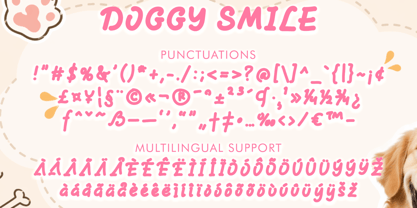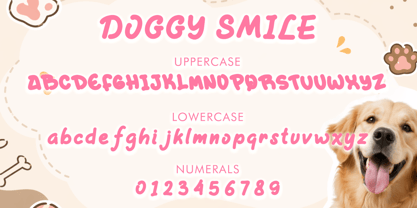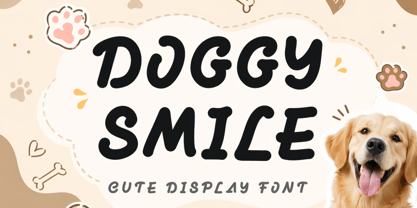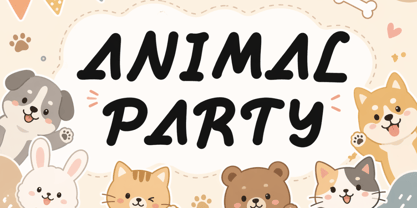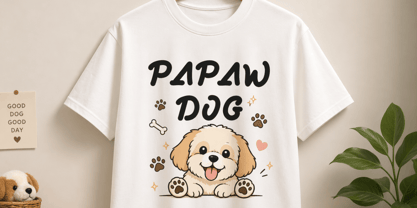
Doggy Smile
by Yoga Letter
The Doggy Smile Font Family was designed by Isroni Yoga Prasetya and published by Yoga Letter. Doggy Smile contains 1 styles. More about this family
“Doggy Smile” is a unique and fun display font. It features uppercase and lowercase letters, numbers, punctuation, alternates, and multilingual support. It’s perfect for animal-themed fonts, Easter, spring, summer, Christmas, cartoons, comics, fairy tales, children’s books, magazines, tattoos, stickers, Mother’s Day, embroidery, flowers, St. Patrick’s Day, and more.
Designers: Isroni Yoga Prasetya
Foundry: Yoga Letter
Doggy Smile